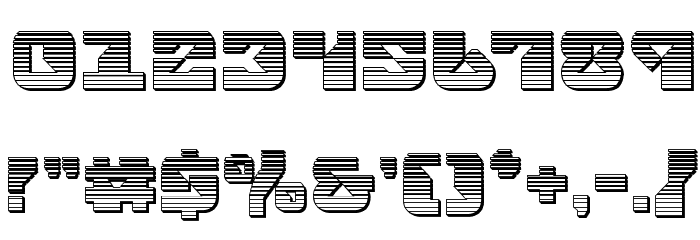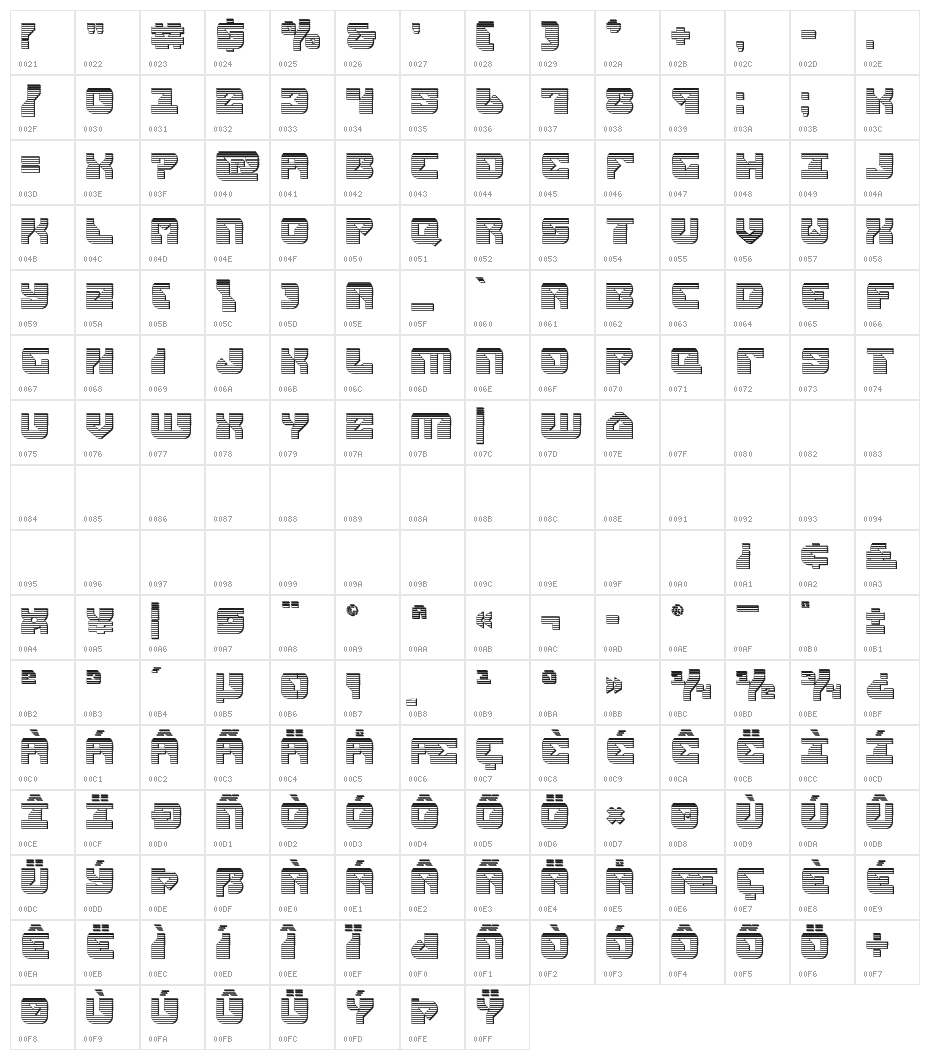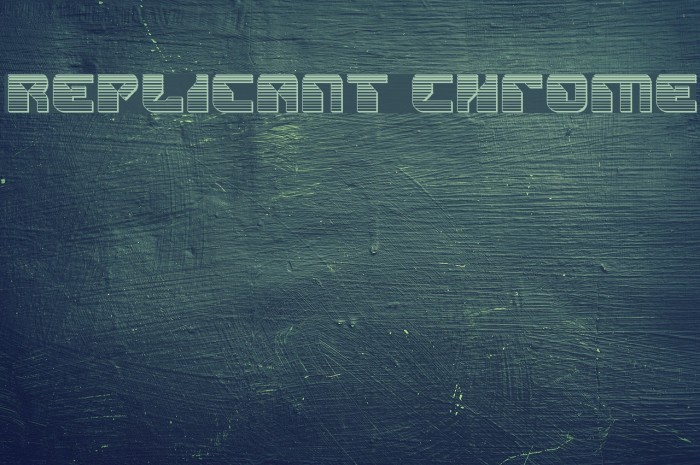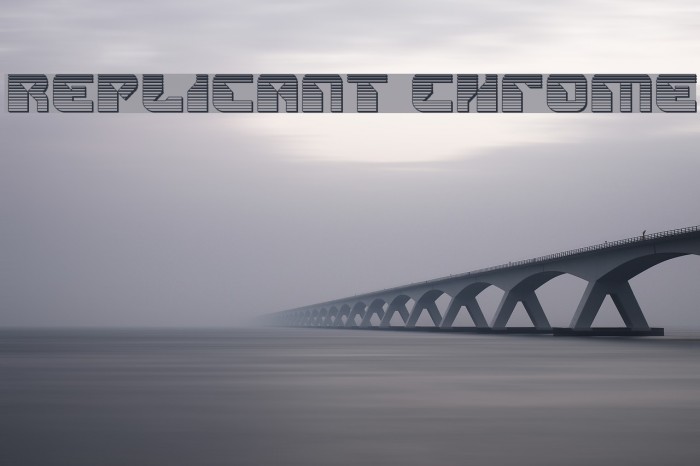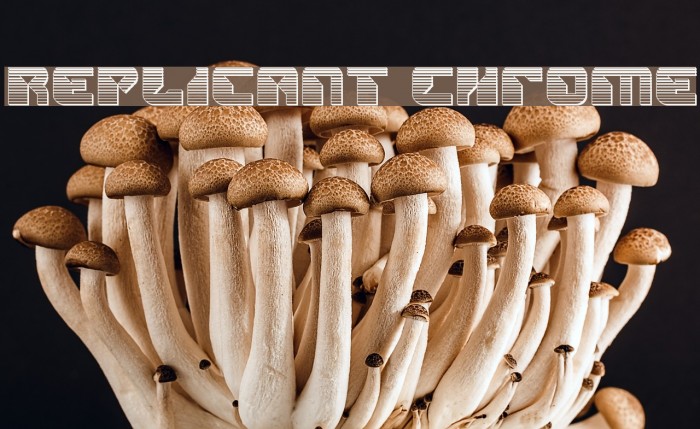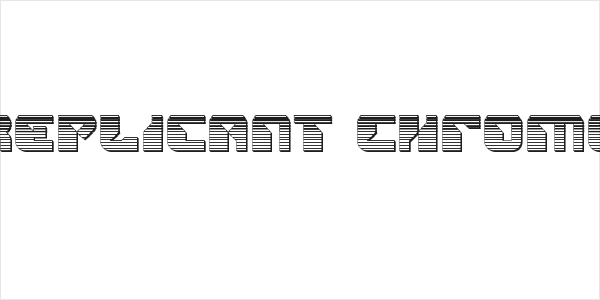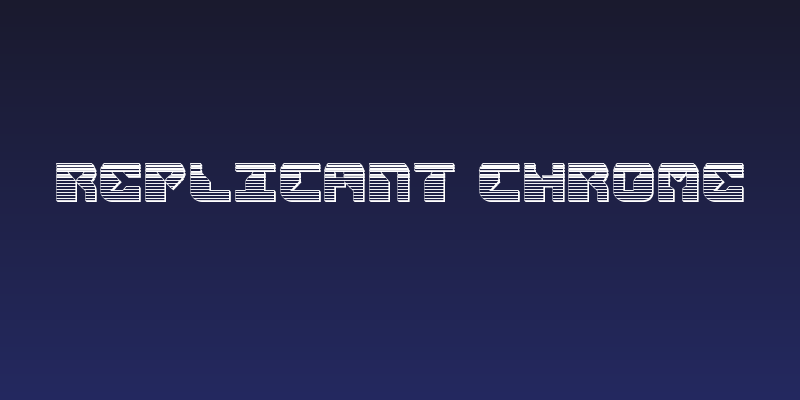
Replicant Chrome Font
Replicant Chrome Description
This font features a futuristic and bold design with a distinctive striped pattern running horizontally across each character. The geometric shapes are sharp and angular, giving it a modern and tech-inspired look. The uppercase and lowercase letters maintain a consistent style, with the stripes creating a sense of movement and depth. The numerals and special characters follow the same design principles, ensuring uniformity across the font. This font's unique aesthetic makes it stand out, ideal for projects that require a modern and eye-catching typeface.
| Proposed Projects | Ideal for sci-fi themed designs, technology branding, video game titles, and futuristic posters. |